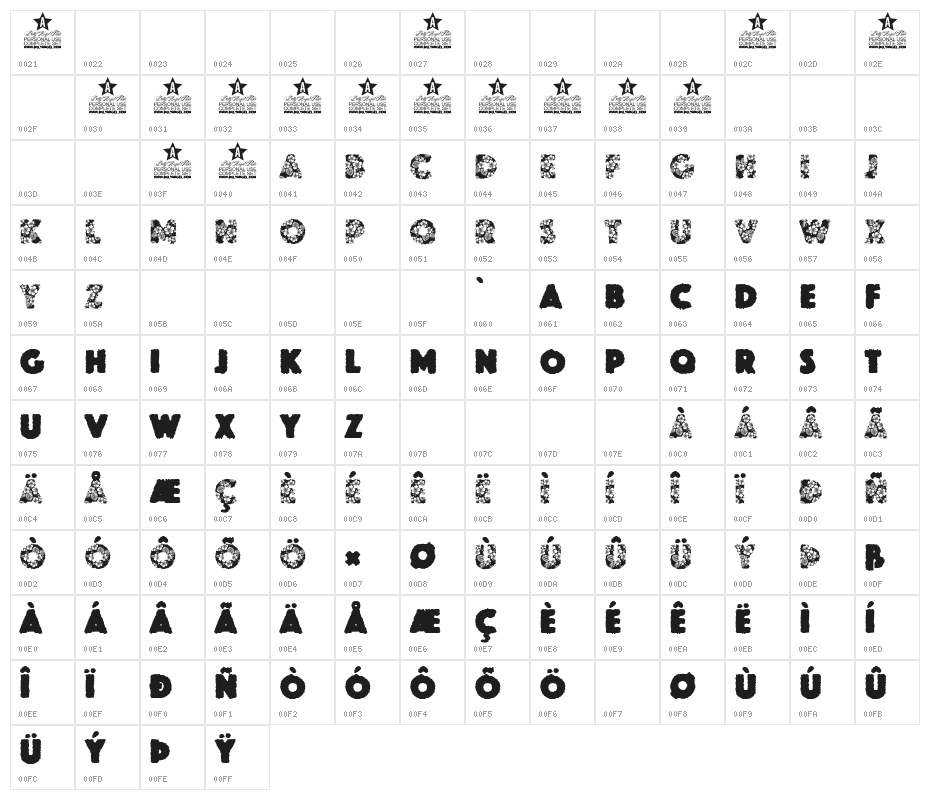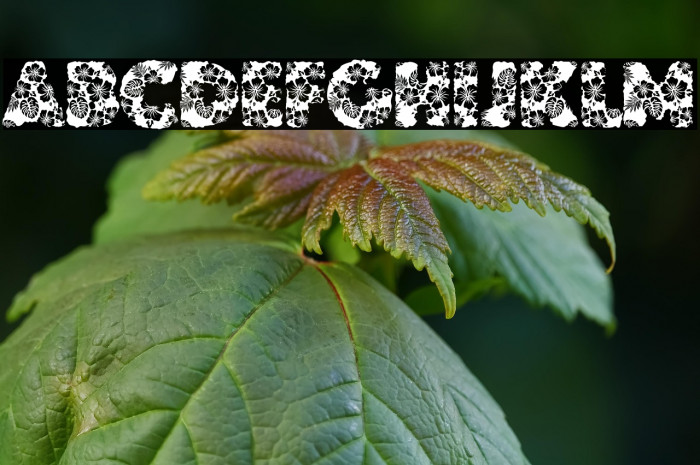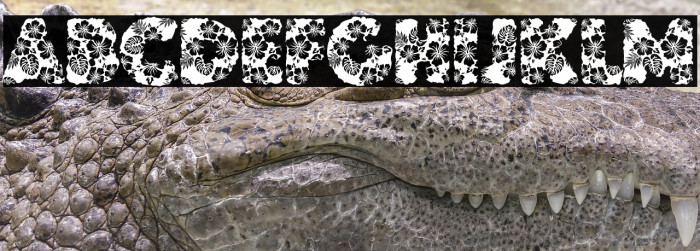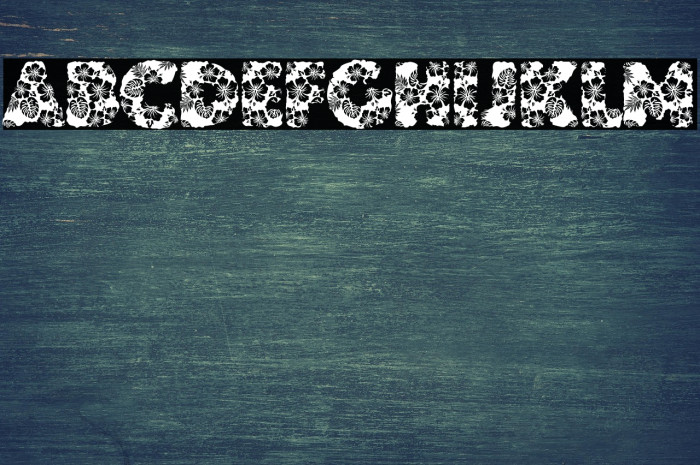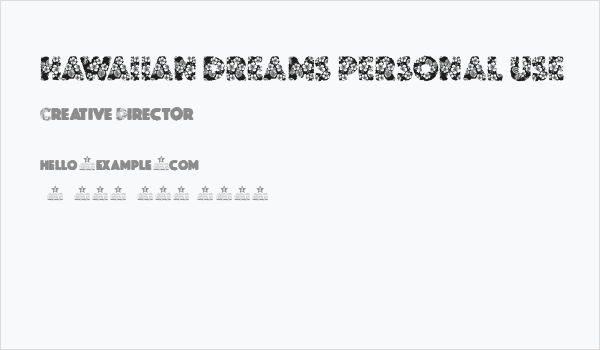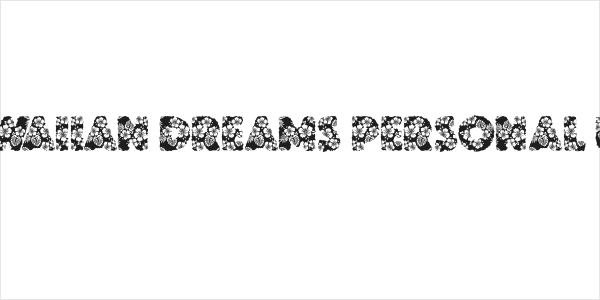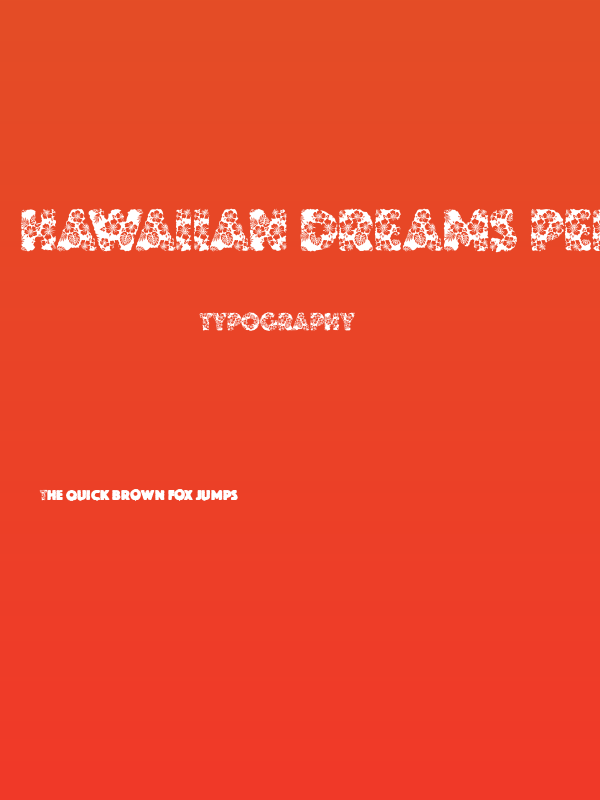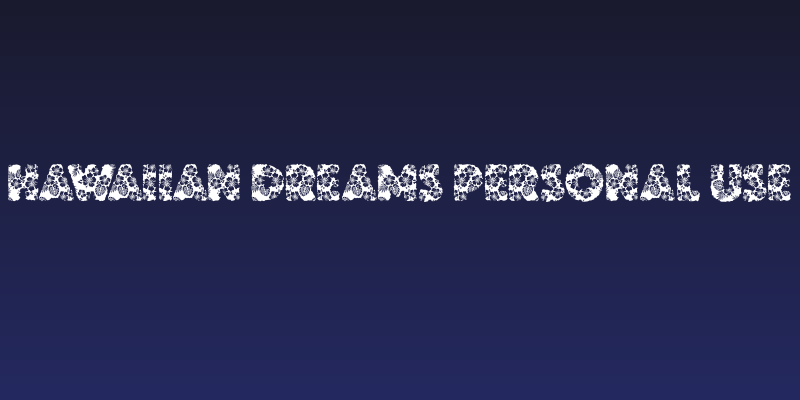
HAWAIIAN DREAMS PERSONAL USE Font
HAWAIIAN DREAMS PERSONAL USE Description
This font features a playful and decorative style, incorporating floral and tropical elements into the design of each letter. The uppercase letters are filled with intricate patterns that resemble Hawaiian motifs, creating a vibrant and lively appearance. The bold and chunky letterforms are designed to stand out, making them ideal for eye-catching displays. The font exudes a sense of fun and adventure, perfect for projects that aim to capture a tropical or beach-themed aesthetic. Its unique design makes it suitable for creative and informal uses, adding a touch of whimsy and charm to any project.
| Proposed Projects | Ideal for beach-themed event posters, tropical party invitations, summer festival branding, and creative merchandise designs. |